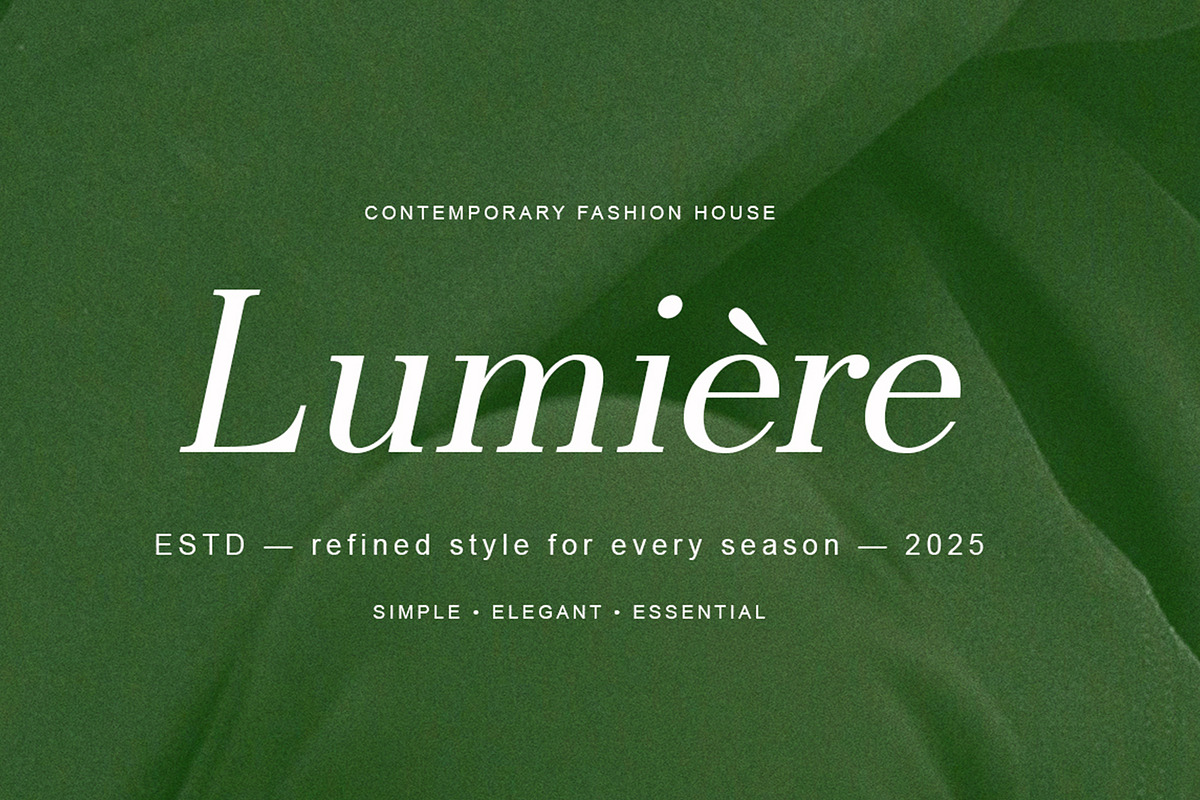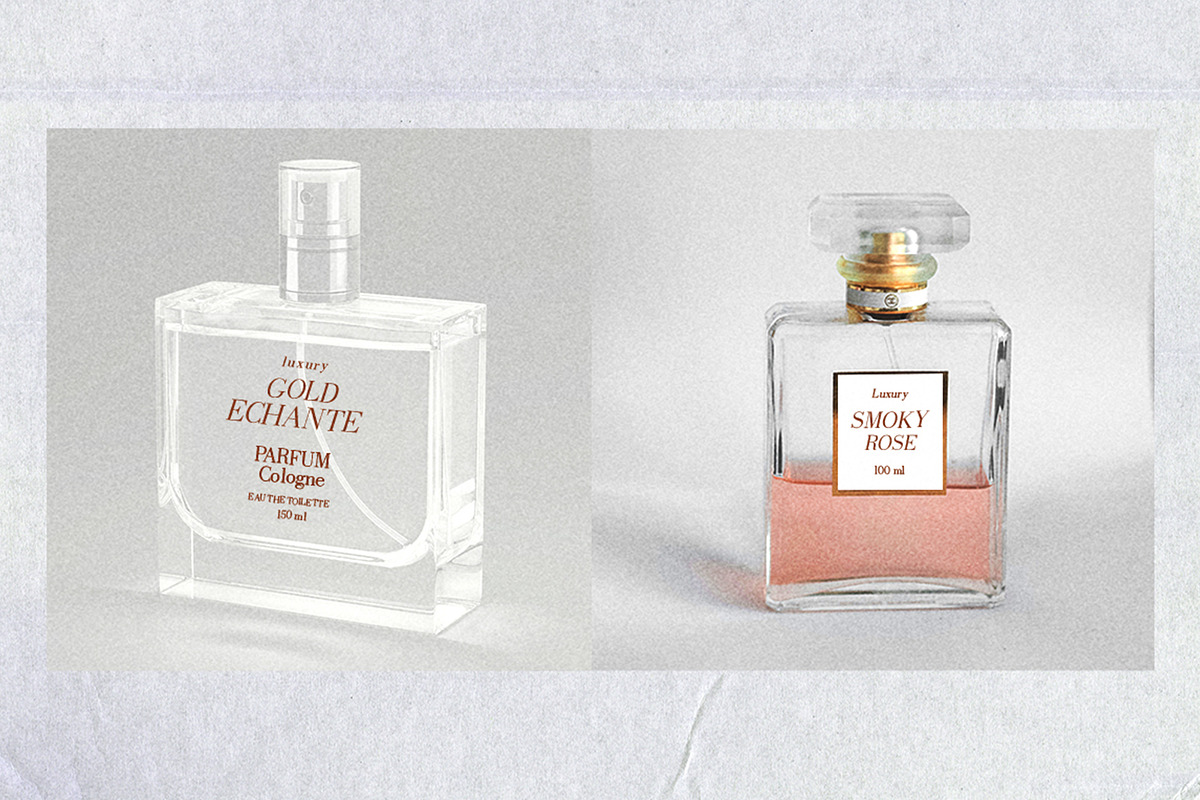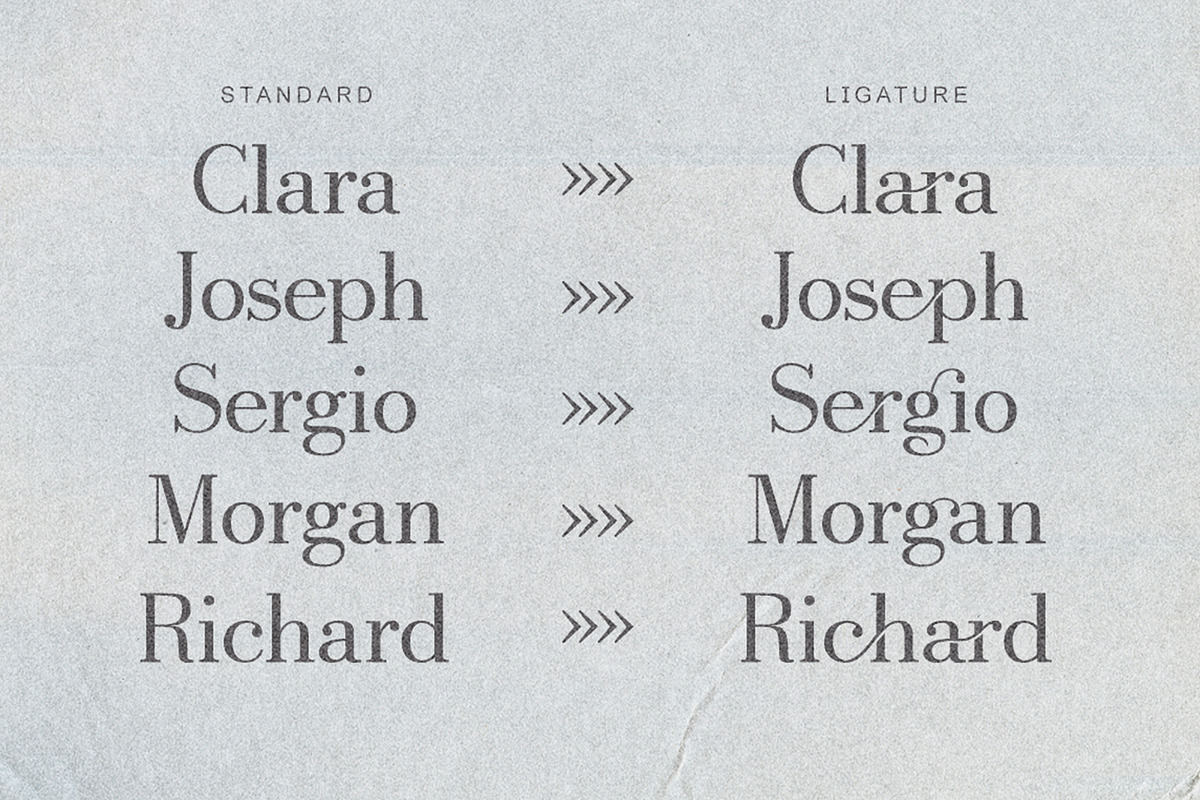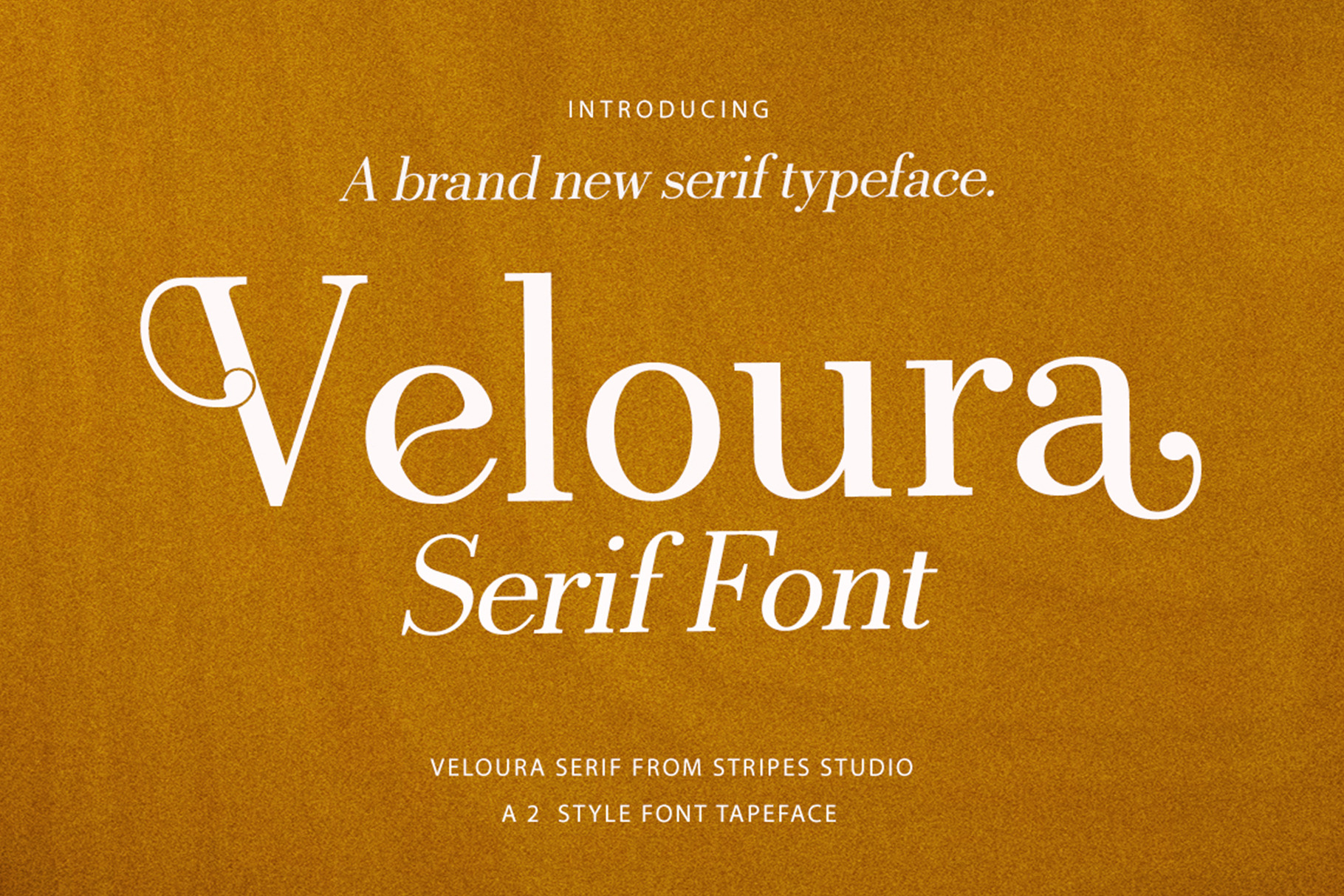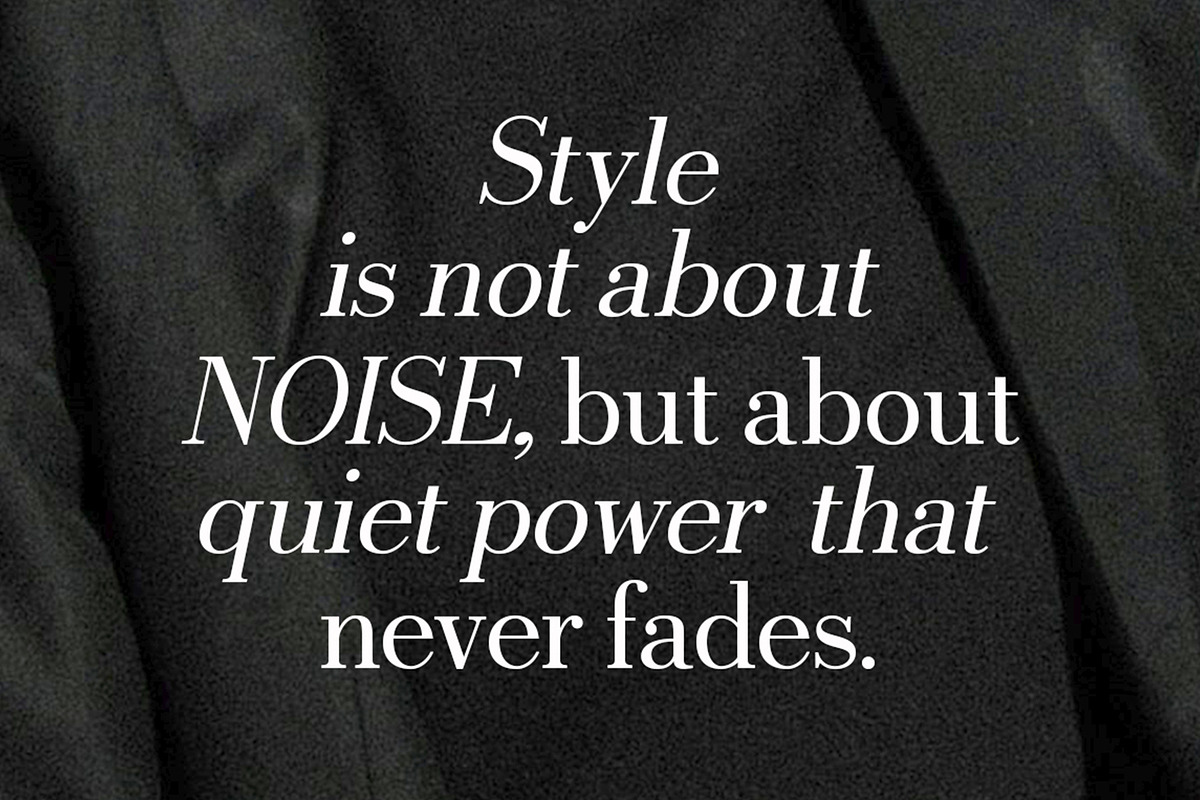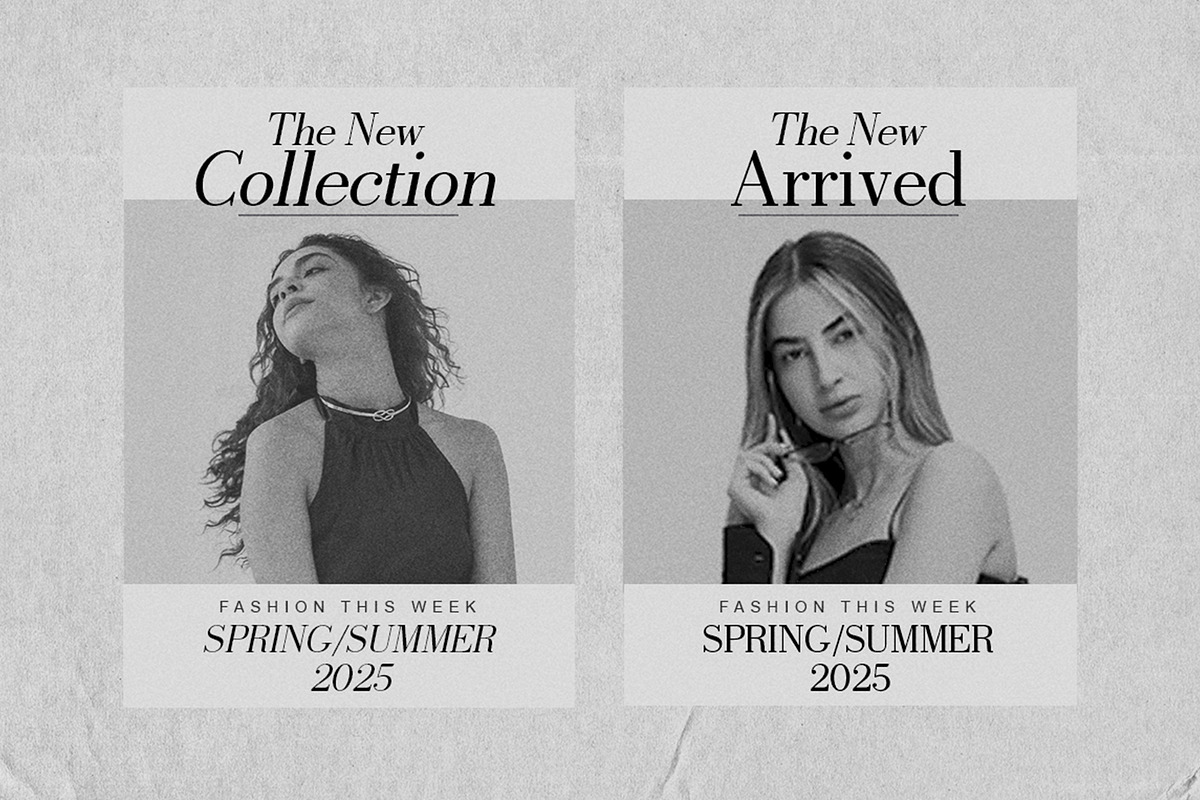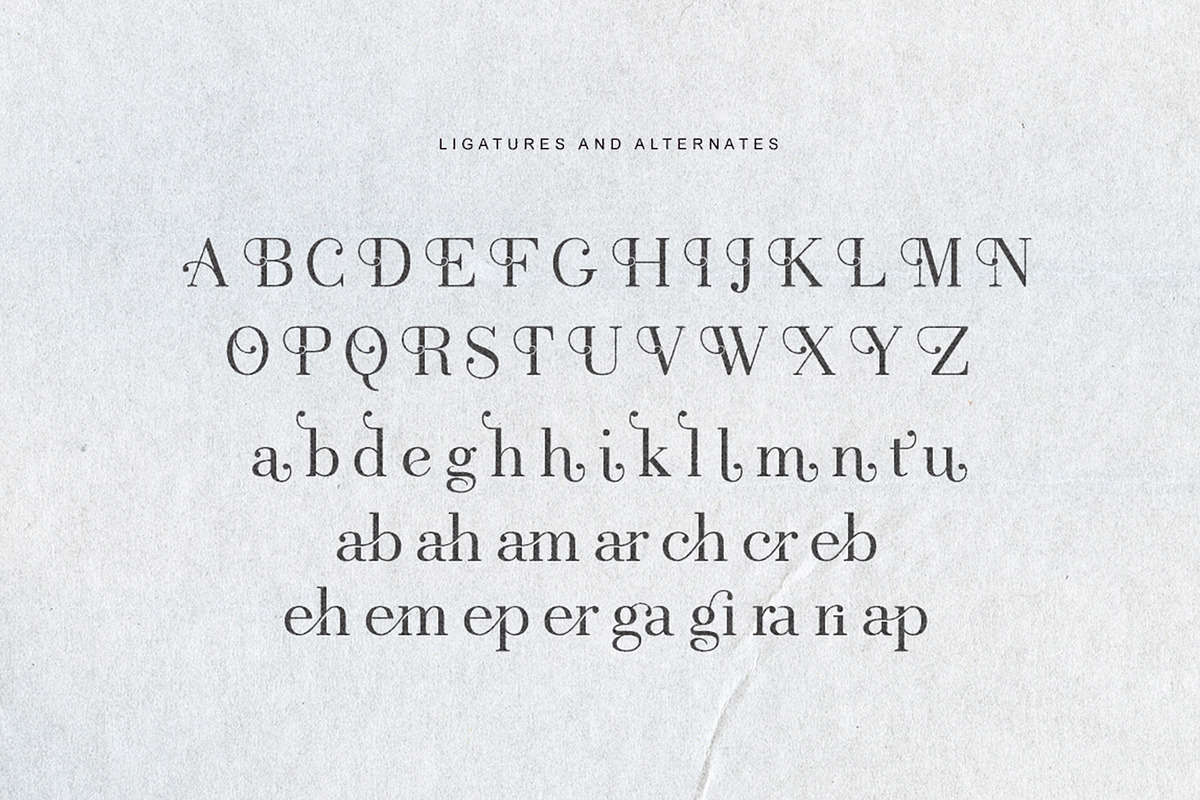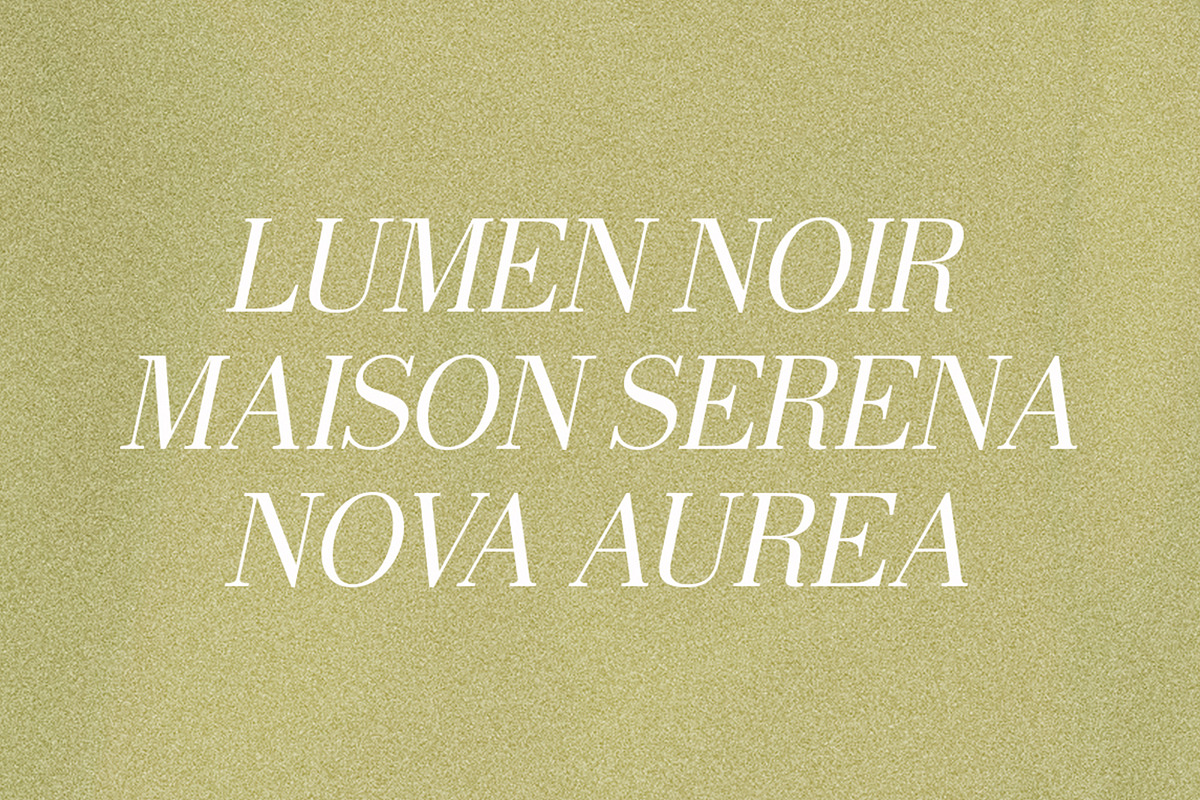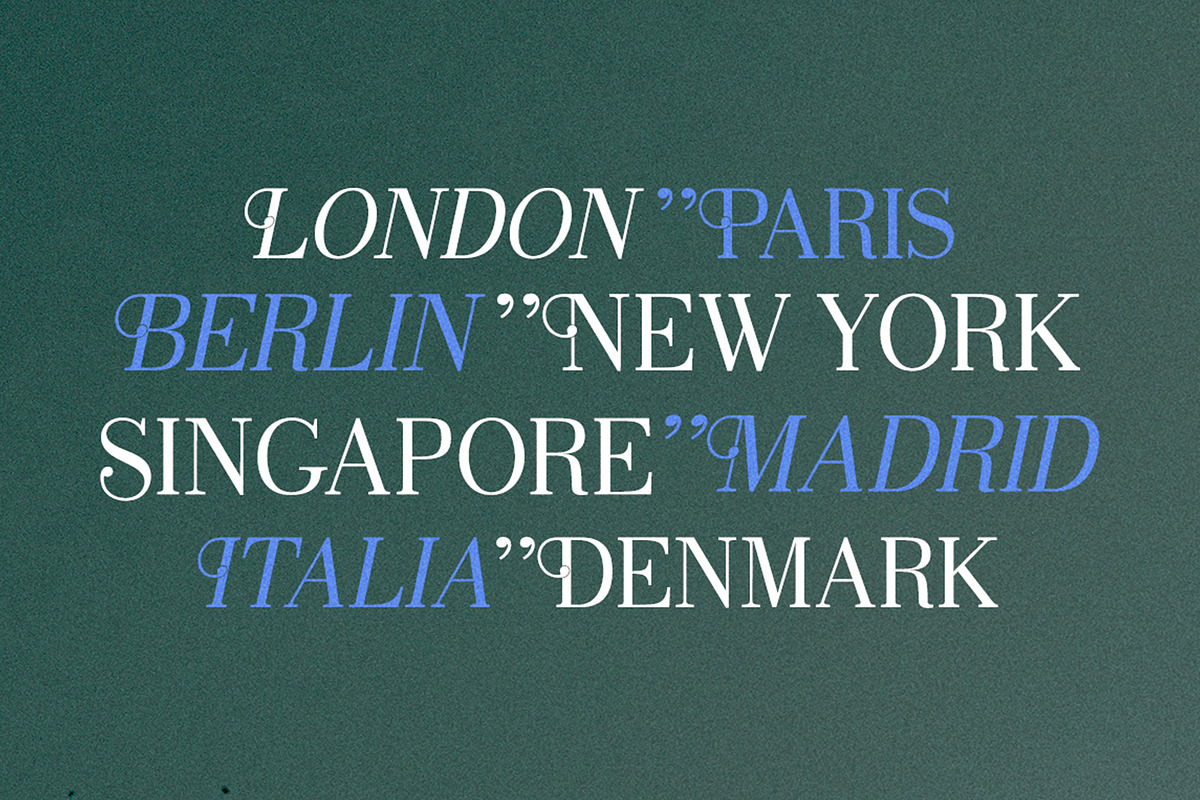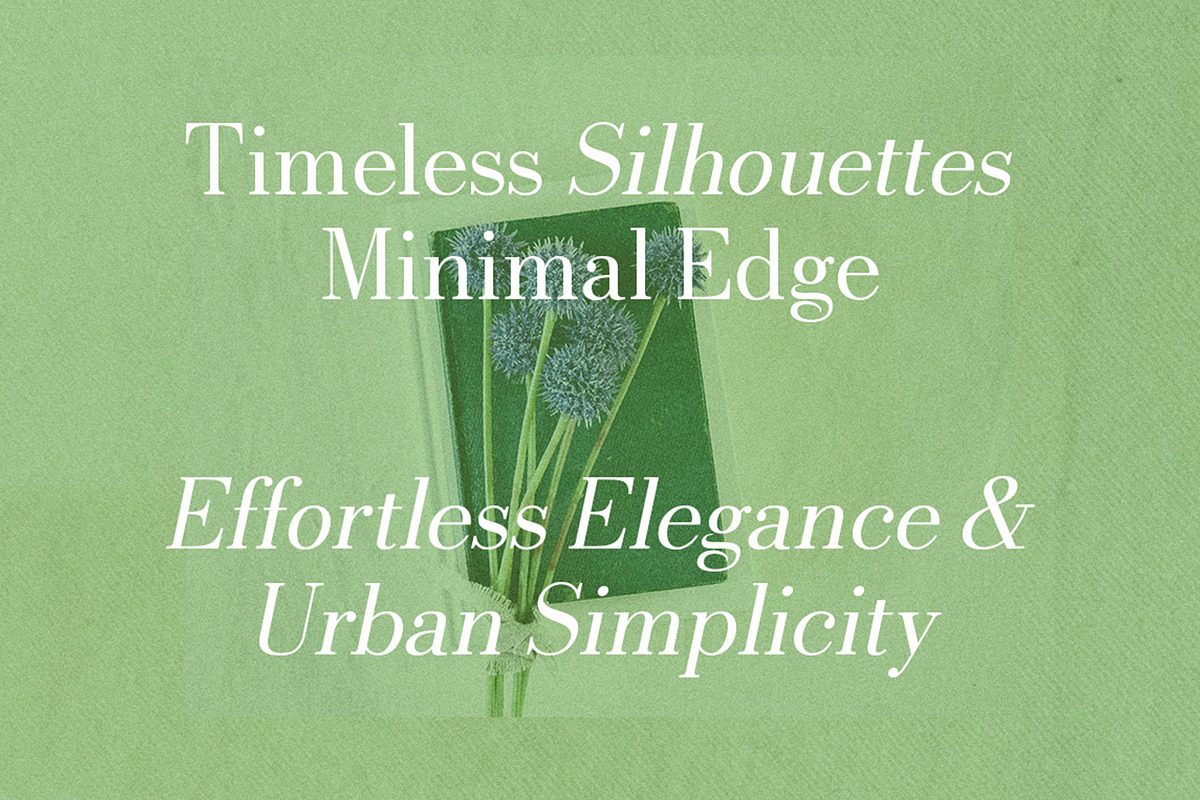
Veloura Serif Font
Veloura Serif is a classic serif typeface with a modern touch, designed to convey elegance, professionalism, and excellent readability. Balancing traditional details with contemporary proportions, this typeface works beautifully for both long-form text and display purposes where a strong, refined character is desired.
The Regular style features upright, balanced letterforms that express stability and clarity.
The Slant style introduces a subtle forward lean, adding a dynamic and expressive tone without compromising legibility.
Key Features: Refined serifs with medium contrast Well-balanced proportions with an even x-height Full Latin character support Suitable for both print and digital applications